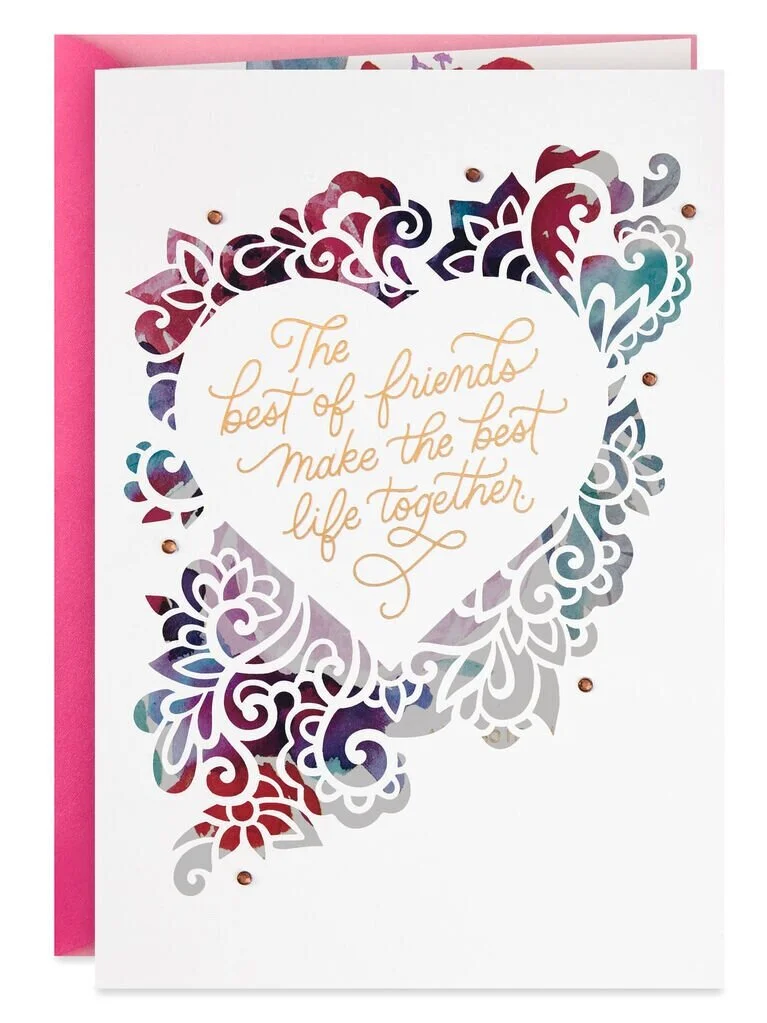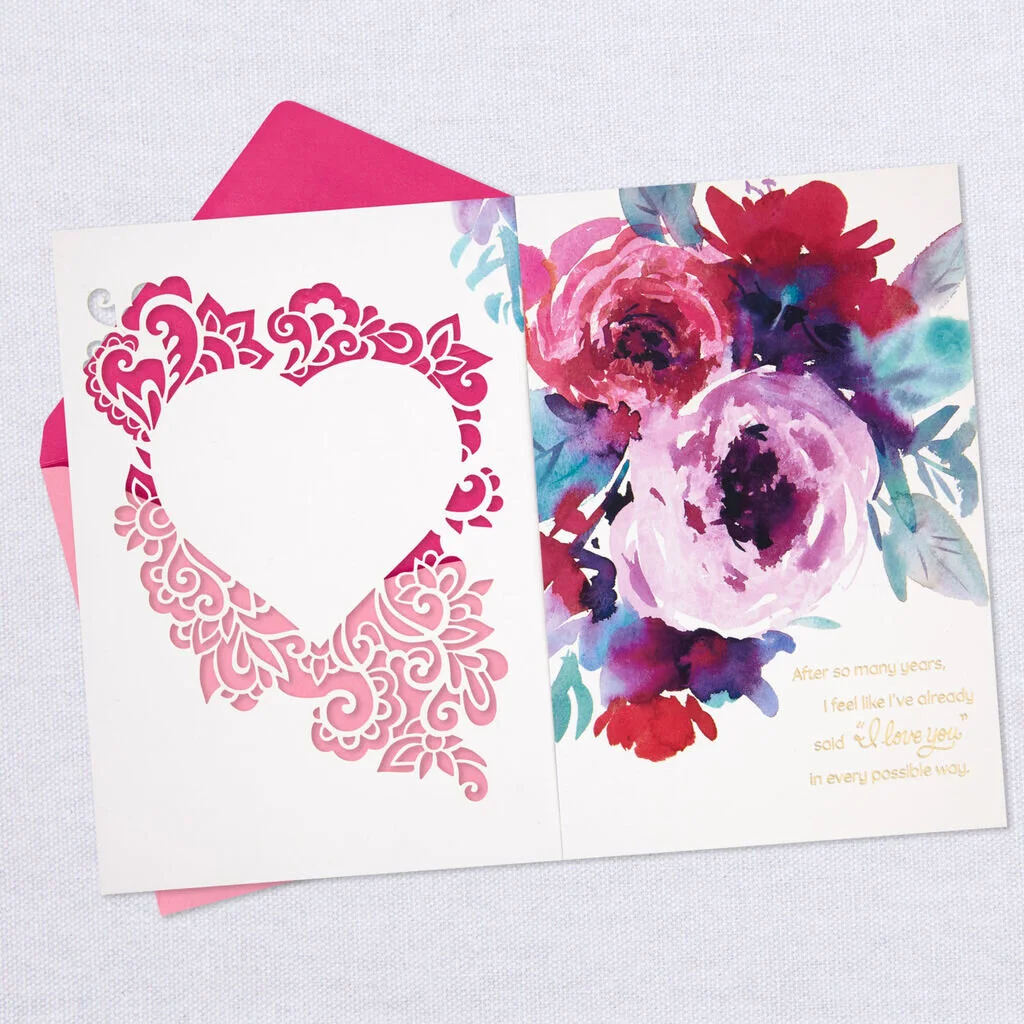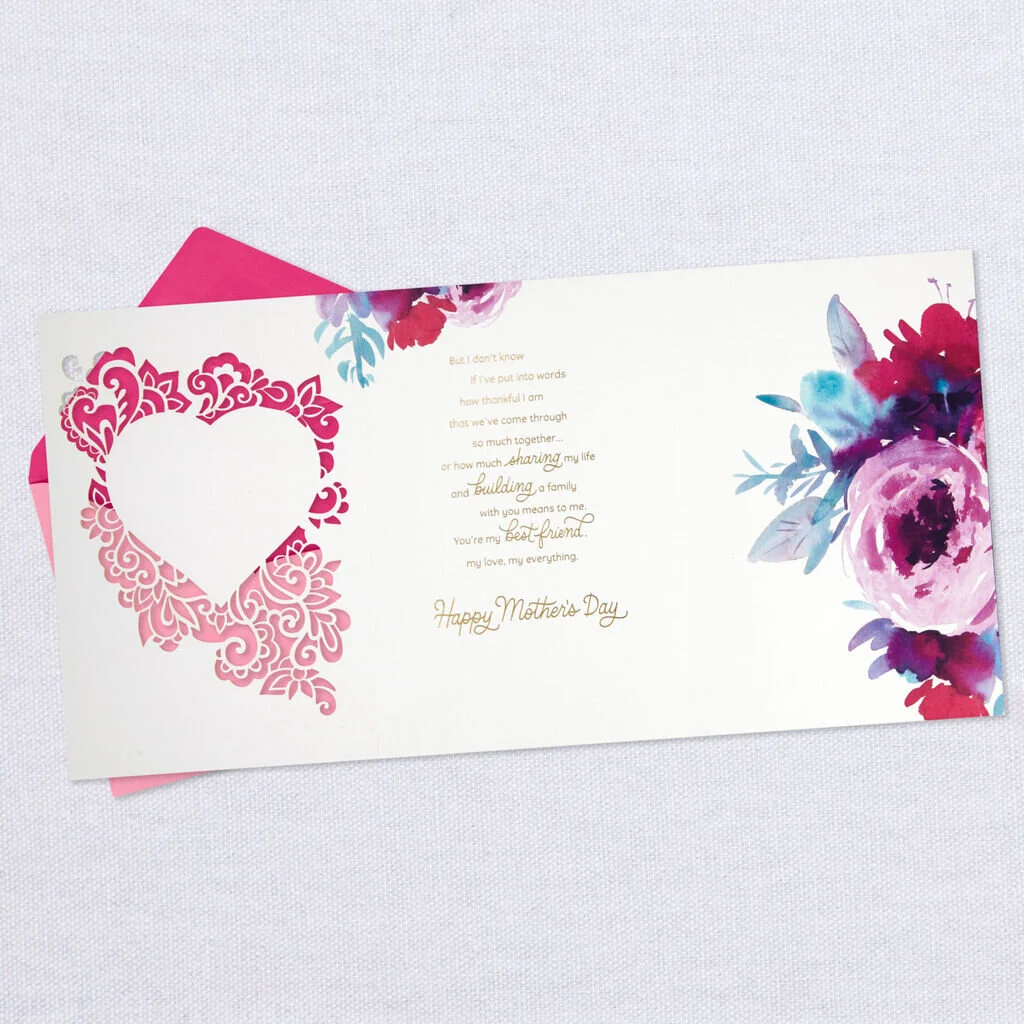
The Best of Friends...
Happy Friday! I love how this card turned out, the laser detail is beautiful and it’s hard to beat gold foil lettering. Mother’s Day is so close, I hope you all are excited to celebrate the moms in your life.